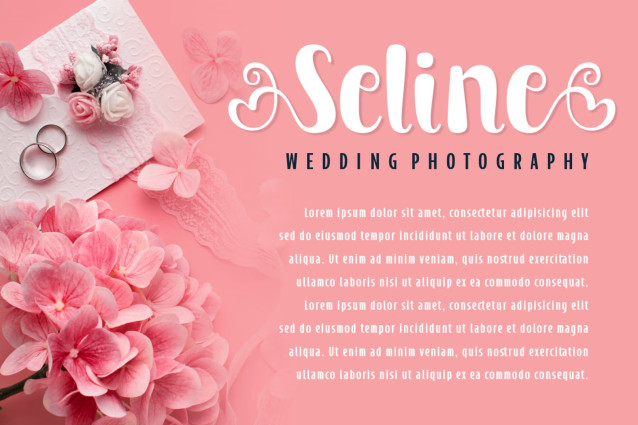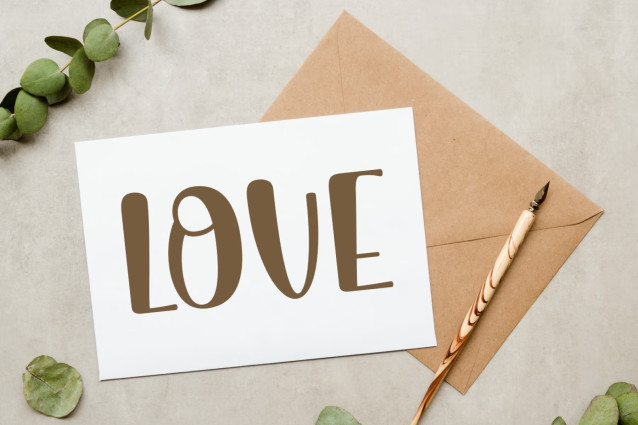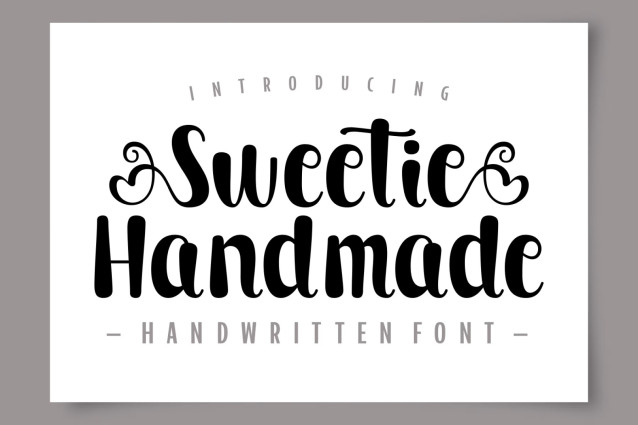
Sweetie Handmade Font
Sweetie Handmade is an elegant and lovely handwritten font. It will look stunning on any wedding invitation, thank you card, quote, greeting card, logo, business card, or any other design that needs a handwritten touch.